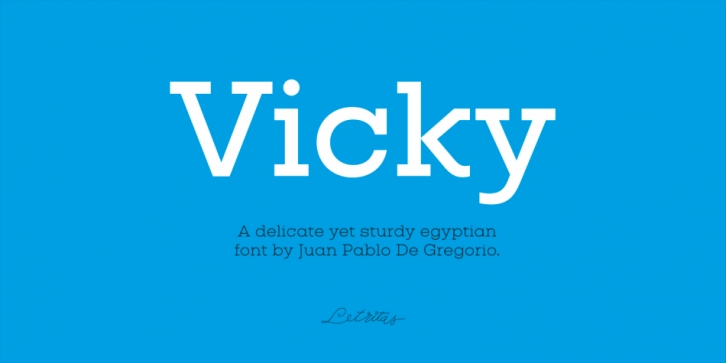
Vicky is a slab serif typeface for headlines designed with geometric proportions. Like all slab serif typographies, it has a very particular strength and robustness. The peculiarity of its forms, as it was born from geometrical figures, creates a cascade of delicate details and inner analogies that make it unique. Vicky is a joyful, happy and shiny typography marked by delicate forms, but with a very strong character.
It was born to be soulmate of “Lilianaâ€: another geometric typeface by Juan Pablo De Gregorio. Working with Liliana and Vicky, together with a compatible chromatic work, you can quickly generate very showy results especially when working on short texts. Vicky is a typeface optimal for being used in marketing assets, packaging design, magazines, branding, film captions, headlines, editorial, quotes, logos, corporate identity, and motion graphics.
The italic version has a 8-degree slant. This feature is intended to convey a gorgeous feeling of tension, power, and agility. It’s very interesting to realize how the dynamism in the italic characters works when compared with the regular ones. The typeface has 9 weights, ranging from “thin†to “heavyâ€, and two versions: “regular” and “italic”. Its 18 files contain 707 characters with ligatures, alternates, and swashes. It supports 219 Latin-based languages, spanning through 212 different countries.